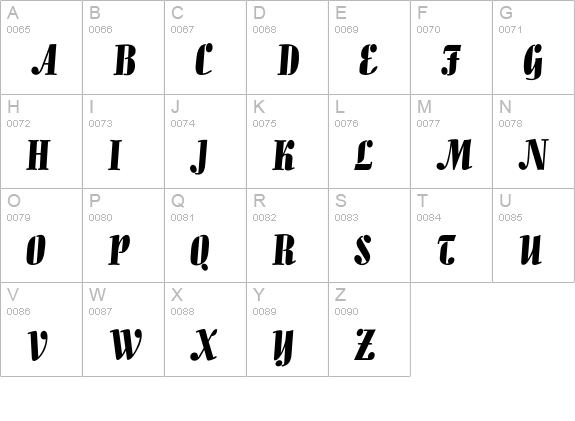
AllegroFont Font Details
AllegroFont is a versatile and elegant font that exudes a sense of sophistication and style. With its sleek lines and modern design, AllegroFont is perfect for a wide range of design projects, from branding to editorial layouts. This font is not only visually appealing but also highly legible, making it a great choice for both digital and print applications. The best part about AllegroFont is that it is completely free to download. You can easily access this font on FontsMarket.com, where you can find a wide selection of high-quality fonts for all your design needs. Whether you're working on a personal project or a professional assignment, AllegroFont is sure to elevate your design to the next level. Don't miss out on this fantastic font - download AllegroFont today and add a touch of sophistication to your creations!